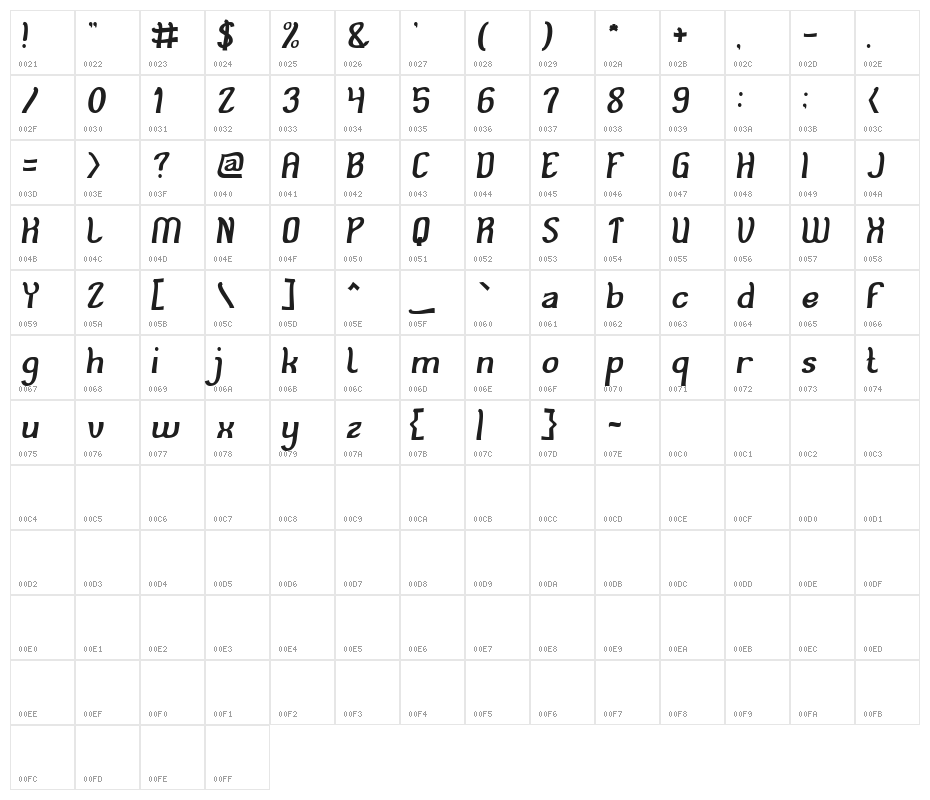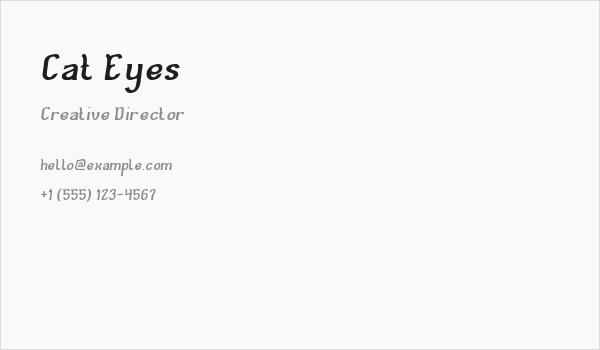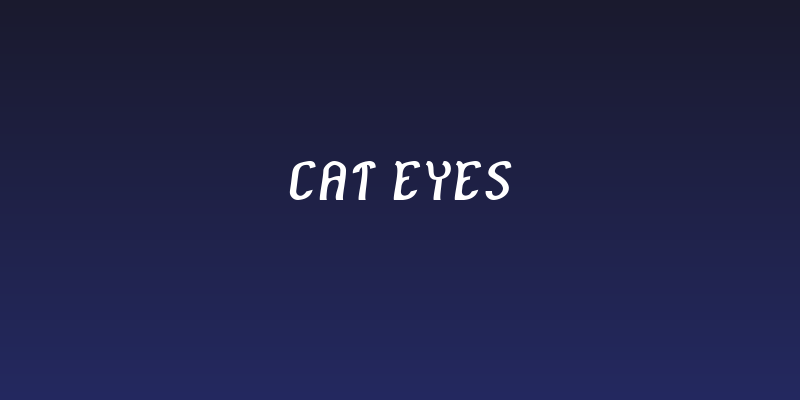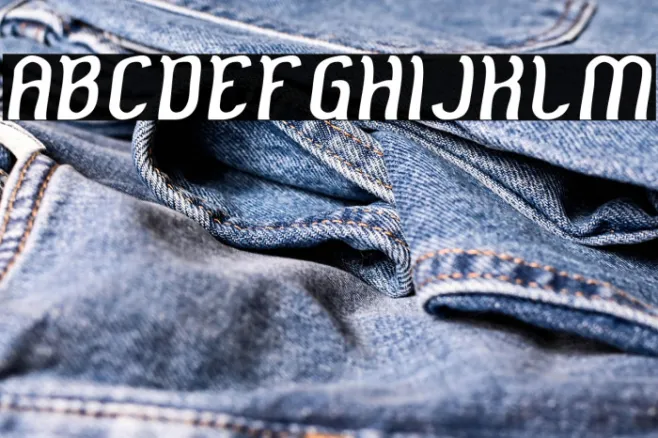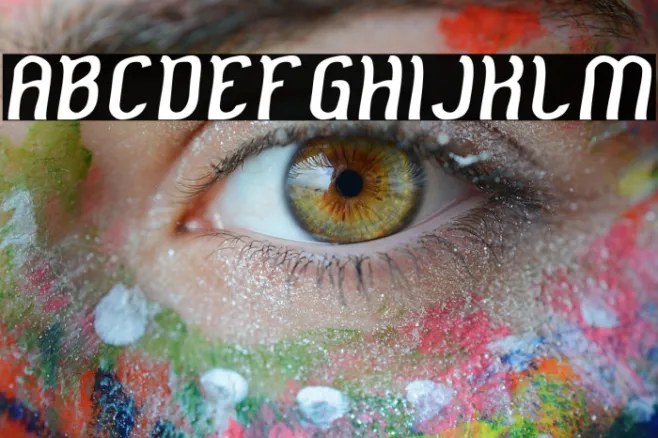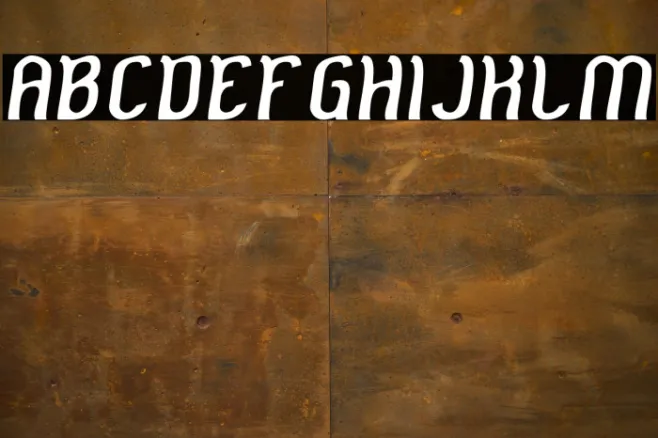
Cat Eyes Font
Cat Eyes Description
This font features a playful and whimsical style with a handwritten appearance. The characters have a slight slant, giving them a dynamic and lively feel. The strokes are moderately thick, providing a bold presence without being overwhelming. The uppercase letters are distinct with curved edges, while the lowercase letters maintain a consistent flow, enhancing readability. Numbers and special characters are designed to match the overall aesthetic, making them suitable for various creative applications.
| Proposed Projects | Ideal for children's books, greeting cards, playful branding, and creative posters. |